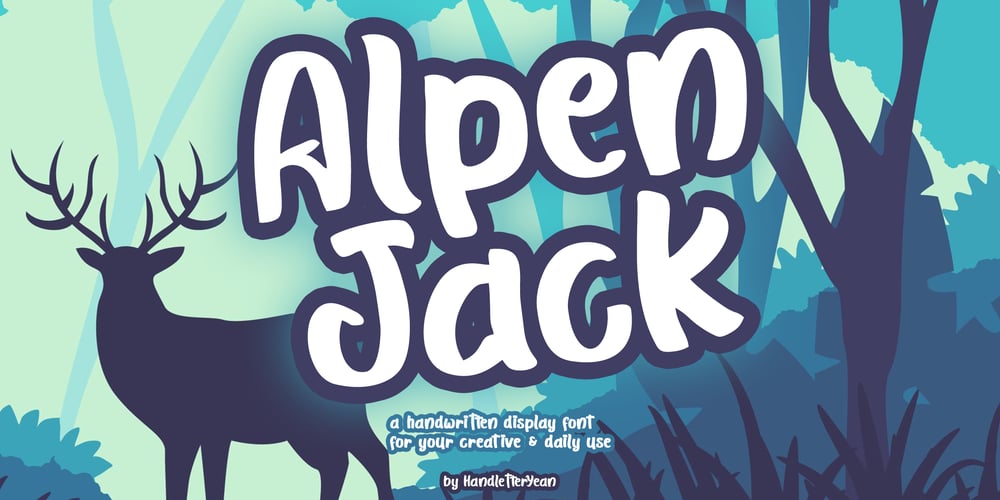
Alpen Jack Font Family was designed by Yean Aguste and published by HandletterYean. Alpen Jack contains 4 styles and family package options. Alpen Jack is a handwritten display font with its own style to distinguish your design from others. Alpen Jack is suited for any work, especially if it is unique. Also great for craft and any kind of custom design. This font is compatible with any design software like Photoshop, Illustrator, Silhouette design studio, and so on. Maximize your inspiration and creativity with this font.